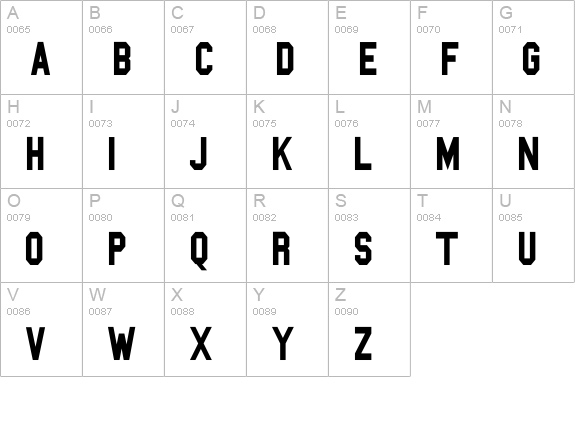
Blockbusted Font Details
Blockbusted font is a bold and eye-catching typeface that is perfect for making a statement. With its blocky and rugged design, this font is sure to stand out in any project. Whether you're creating posters, logos, or social media graphics, Blockbusted font will add a touch of edginess and uniqueness to your work. The best part? Blockbusted font is completely free to download at FontsMarket.com. You can easily access this versatile font and use it in your personal or commercial projects without any cost. Don't miss out on the opportunity to enhance your designs with the bold and impactful Blockbusted font today!